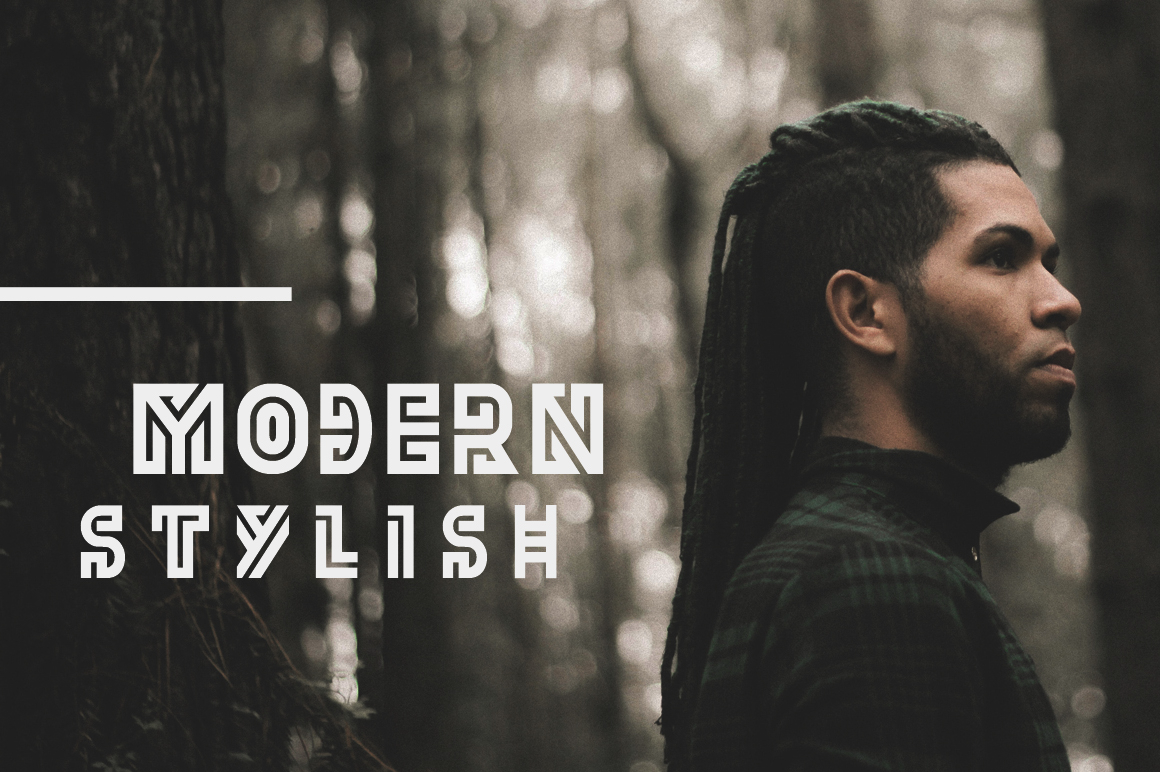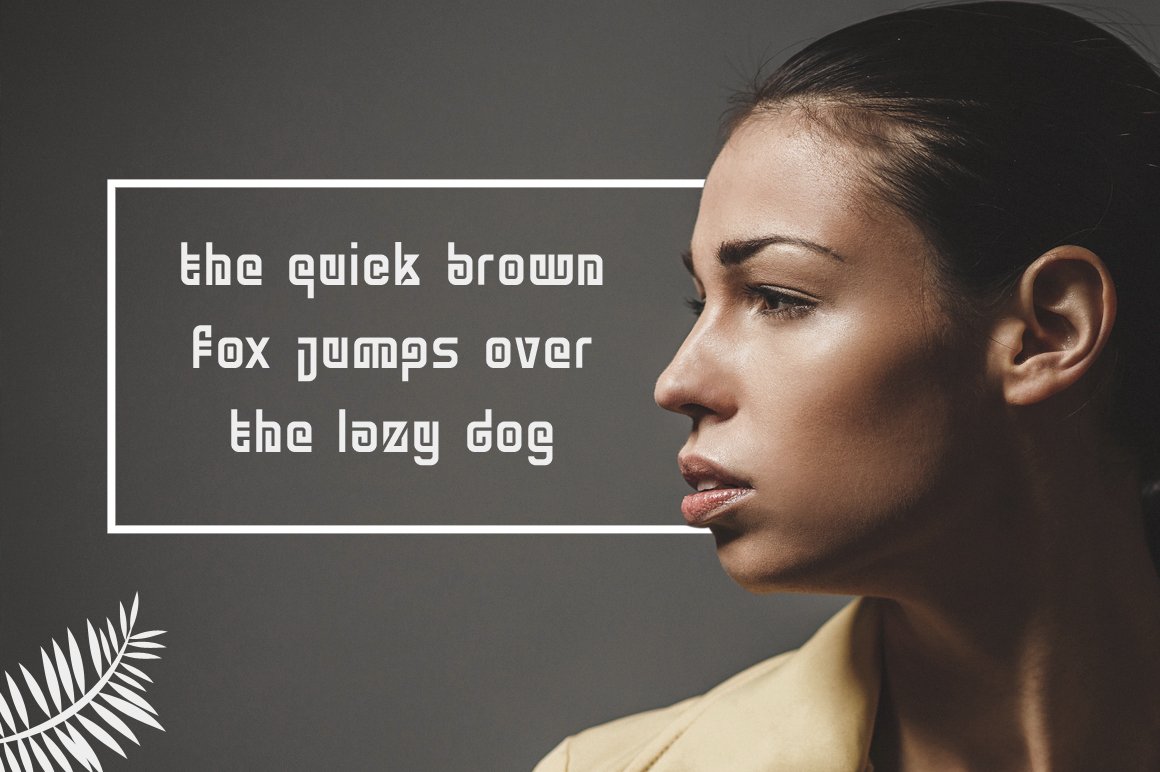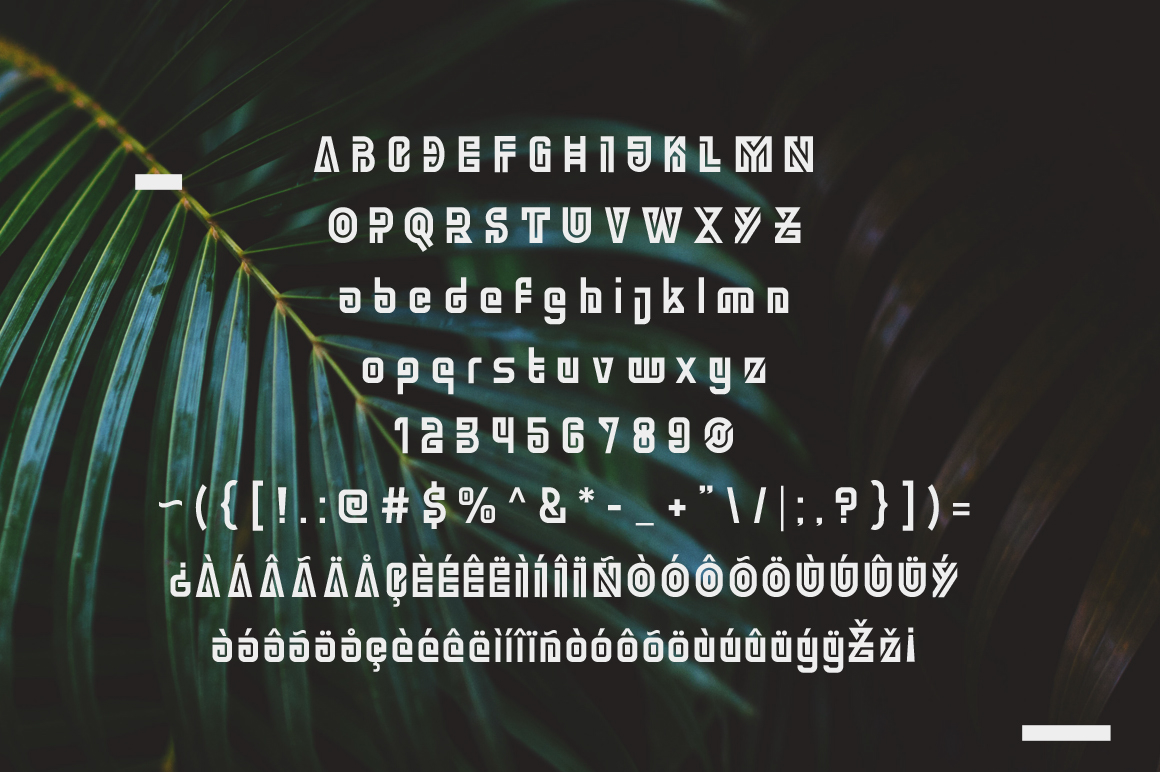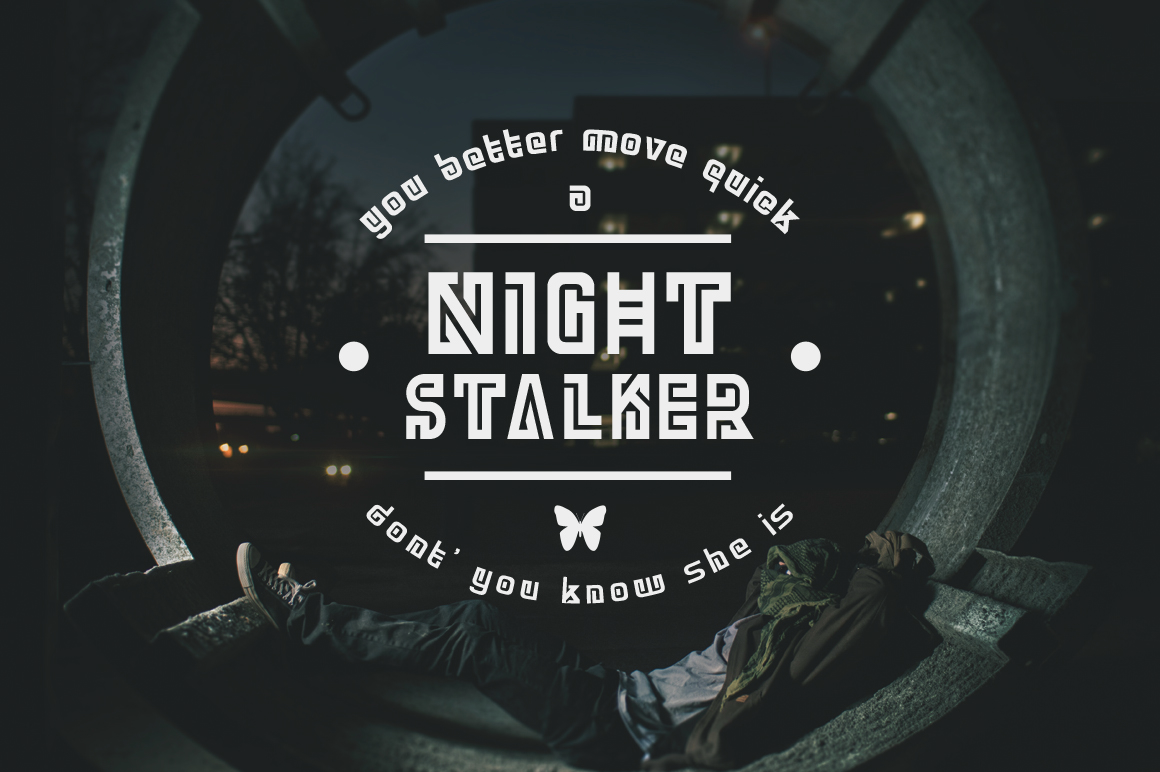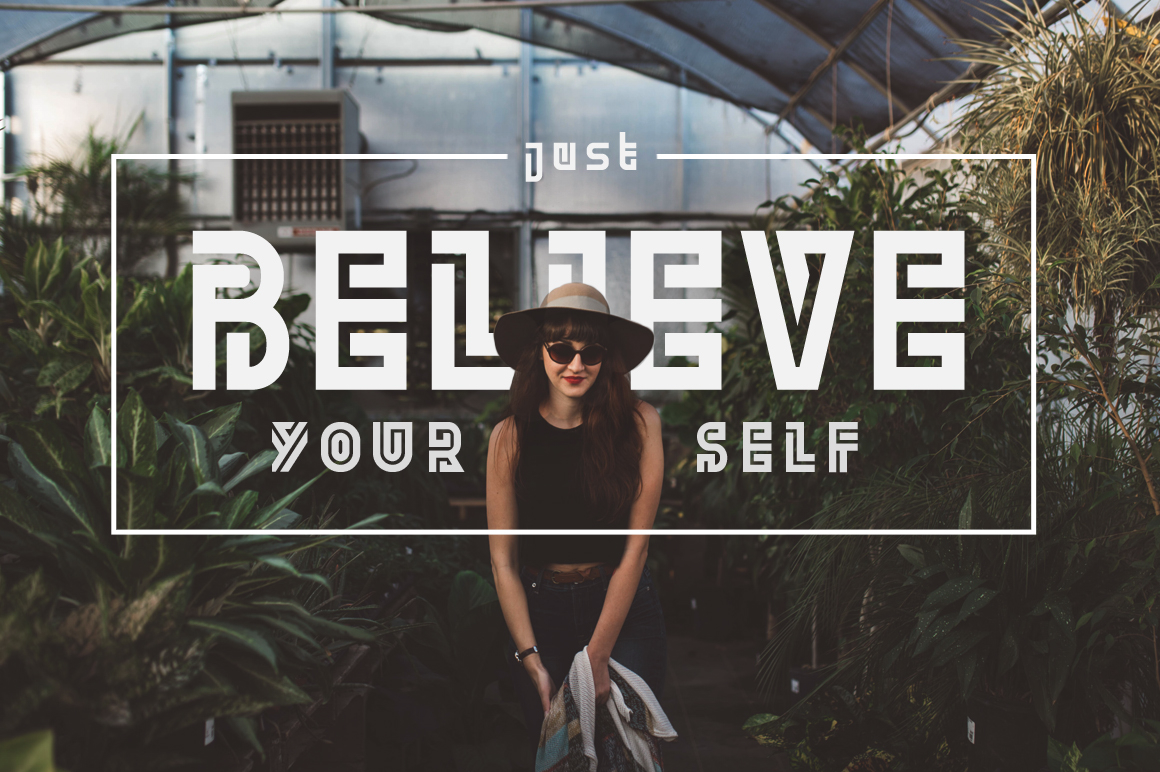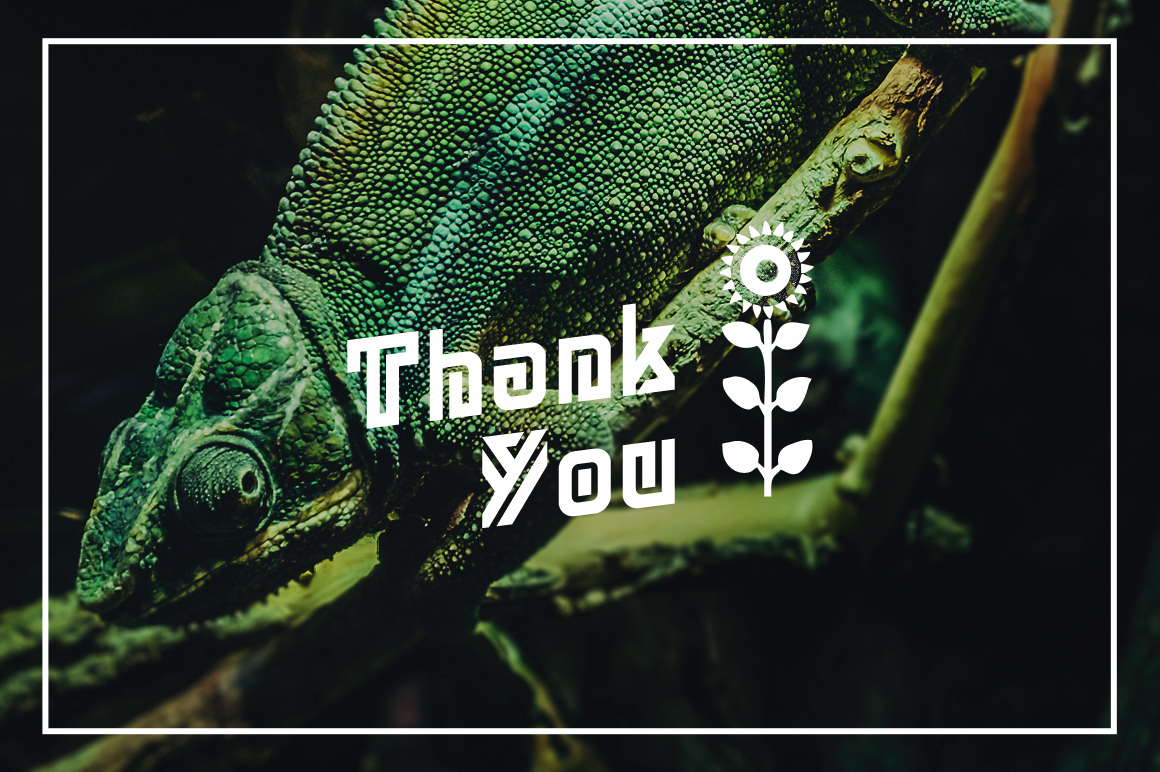
Introduction to Ngamboel Font
Imagine being stuck on a design project, staring at a blank page, and suddenly, a spark of inspiration strikes. You envision a unique font that blends the elegance of traditional manuscripts with the edginess of a ‘techno’ style. This is exactly what the Ngamboel Font brings to the table – a perfect fusion of past and present that’s sure to elevate your creative project to the next level.
Honest Review: Ngamboel Font
As a designer, I’ve come across my fair share of fonts, but the Ngamboel Font has caught my attention. Its unique design and high-quality typography make it a valuable addition to any design resource. I was excited to give it a try and see how it would perform in various creative projects.
- ⚠️ Some of the characters and symbols are not as refined as I would like, which can be a problem in certain design situations.
Ngamboel Font: A High-Quality Design Resource for Creative Projects
Common Use Cases for Ngamboel Font
Ngamboel Font is ideal for a variety of creative projects, including brochures, posters, business cards, and social media graphics. With its high-quality design and transparent background, Ngamboel Font is a valuable resource for designers and non-designers alike.